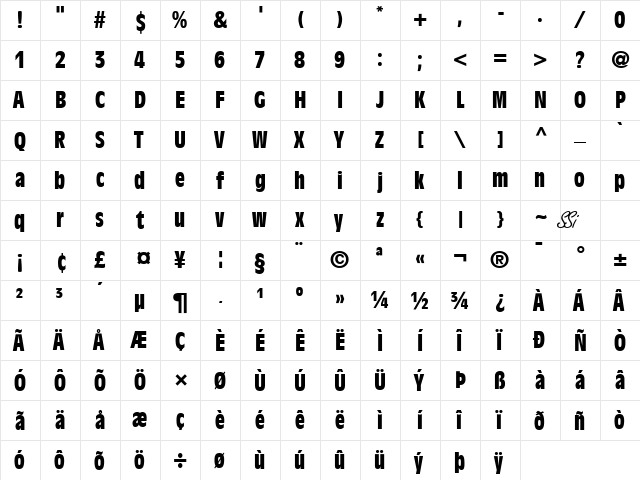
Decade Condensed SSi Bold Condensed
Design Context for Decade Condensed SSi Typeface
Decade Condensed SSi offers clean, dependable letterforms without strong stylistic allegiance, making it a practical choice for designers who need flexibility. Its bold stroke weight gives it real presence on the page. Its narrow stance lets it pack a punch even in space-constrained designs.